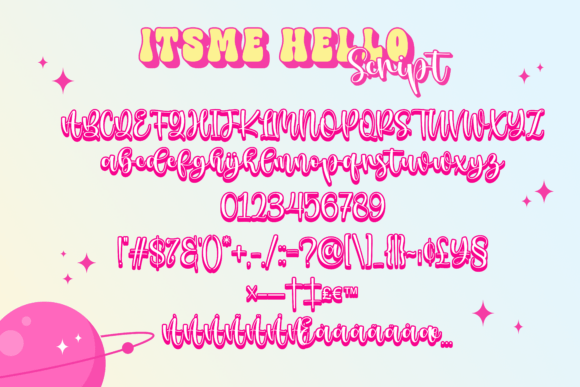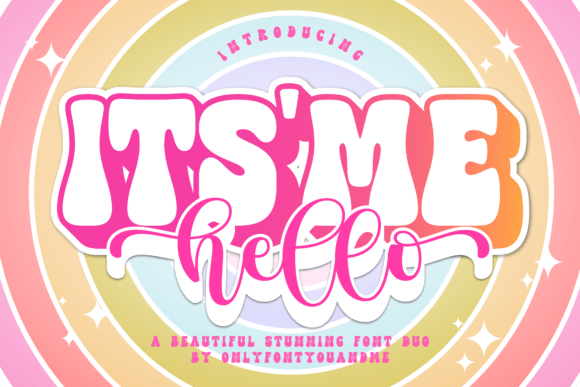
Itsmehello Regular Font
The “It’s Me Hello” font duo brings together two distinct yet perfectly complementary styles: a bold display font and an elegant script font.
“It’s Me” is a chunky, bubble-style display typeface defined by thick, rounded letterforms and exaggerated proportions. With its soft, curved terminals and wide, blocky shapes, it exudes a groovy, retro vibe. The consistent stroke weight and tight spacing enhance its bold, cartoon-like personality, making it an eye-catching choice for playful and energetic designs.
“Hello” contrasts beautifully with a modern script aesthetic, featuring fluid, graceful strokes and striking contrast between thick and thin lines. Flowing letter connections, decorative swashes, and elongated ascenders and descenders give it a whimsical, handwritten charm. Calligraphic and expressive, this script font adds a touch of elegance and warmth, perfect for pairing with the boldness of “It’s Me” to create visually dynamic and stylish compositions.